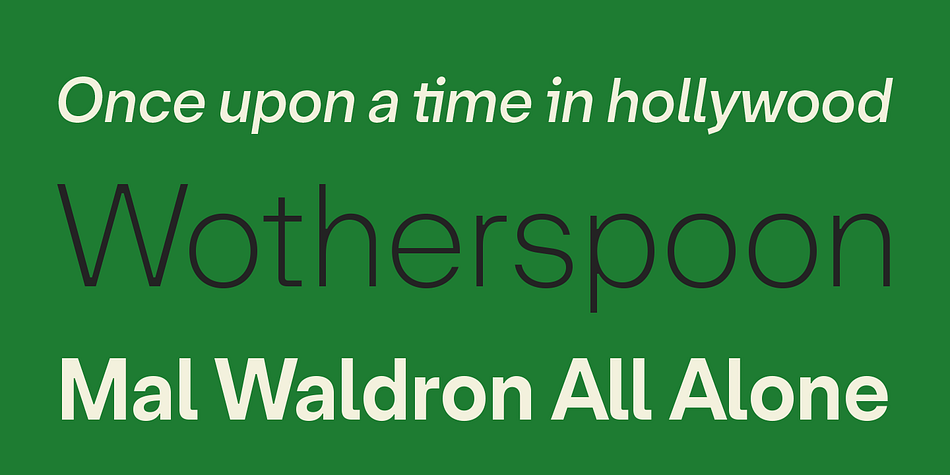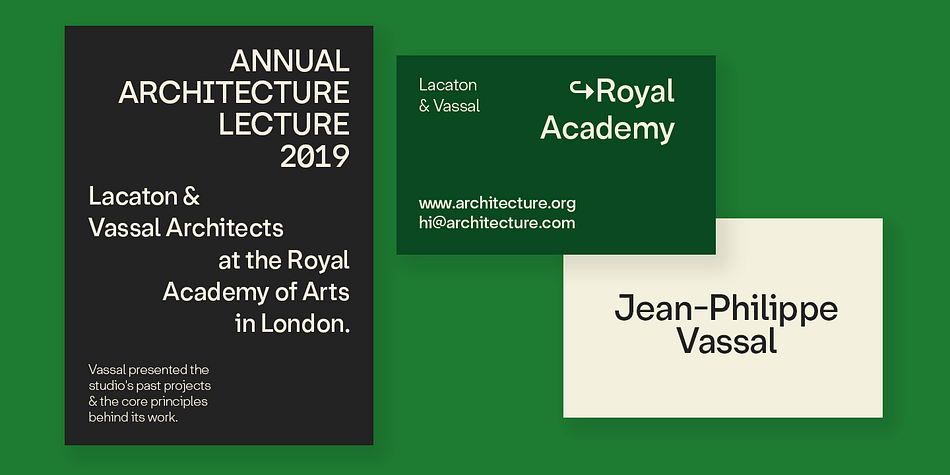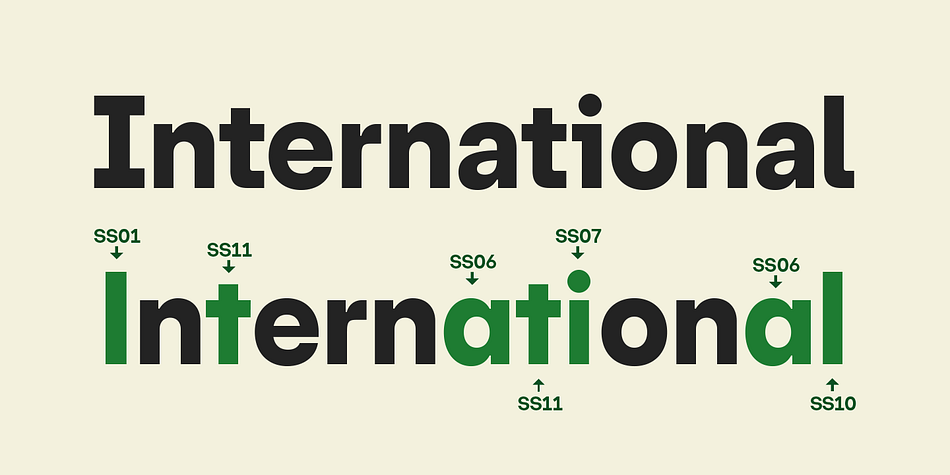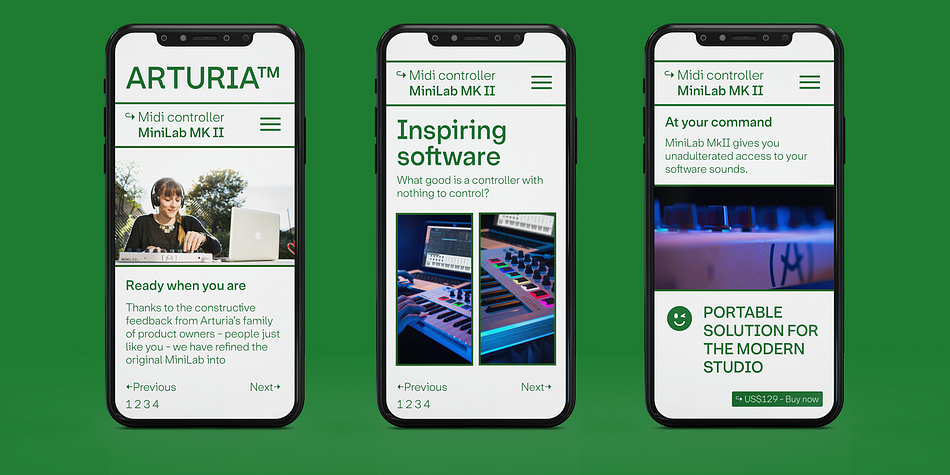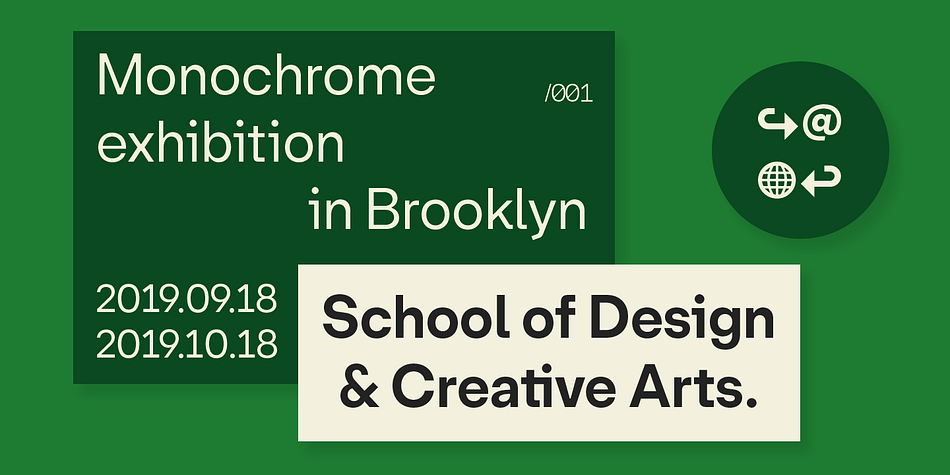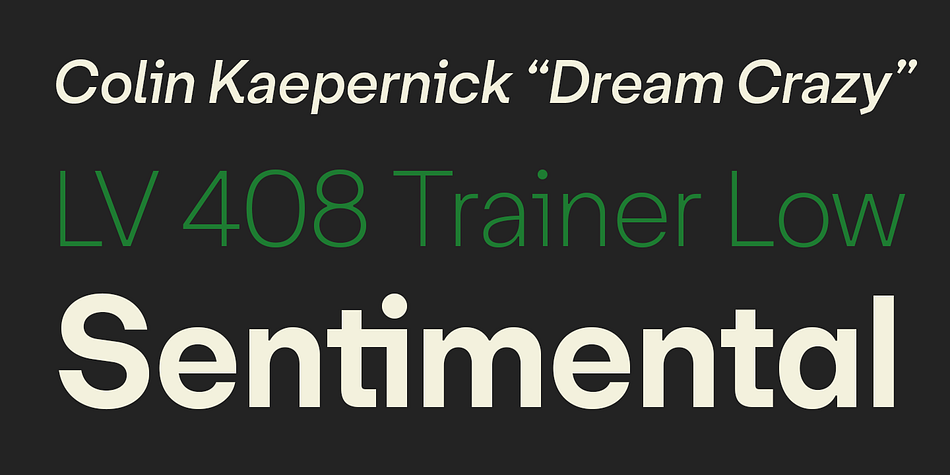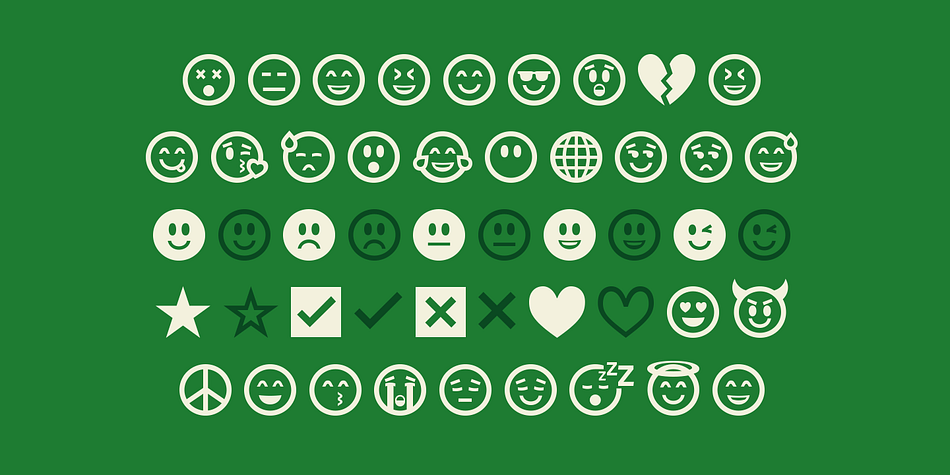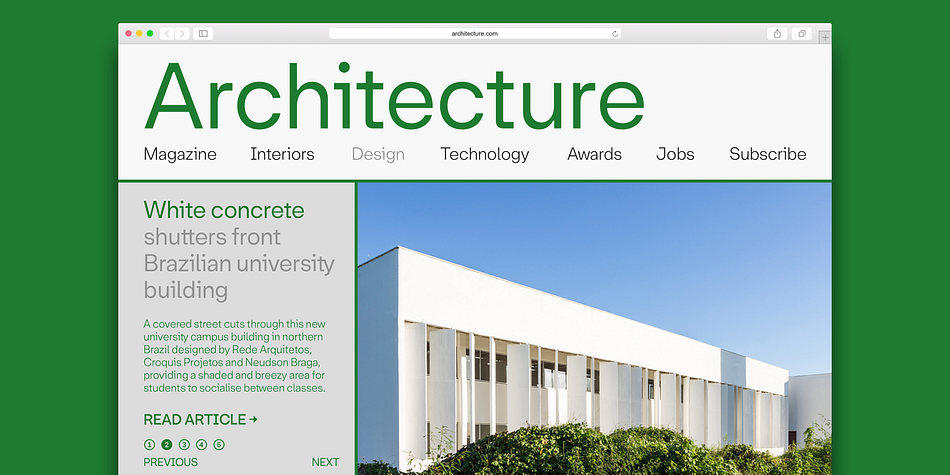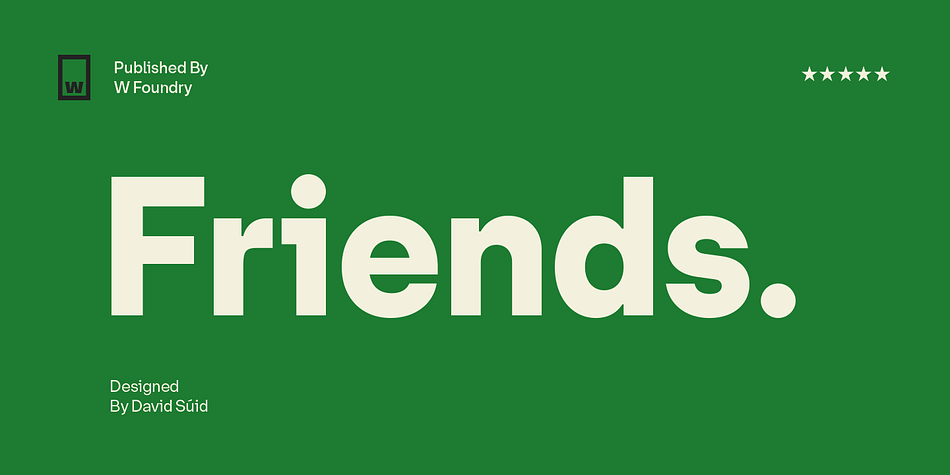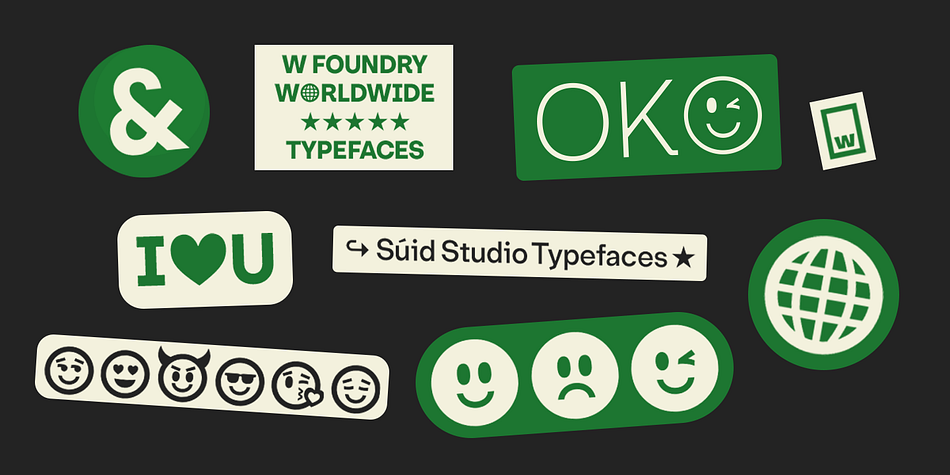
Designed by David Súid, Friends is a sans serif font family. This typeface has fourteen styles and was published by W Foundry.
Friends is a complete and contemporary language system for postmodern graphics. Inspired by the idea of making new art and graphic design keeping in mind new ways of visual language like emojis as a formal way of communication and contemporary graphic arts.
Friends is perfect for web design, postmodern arts, book design, posters, editorial design, branding, advertising, headlines, and short texts.
Friends includes 14 style typeface plus italics, icons, emojis, arrows, ligatures, fractions, special numbers, etc.